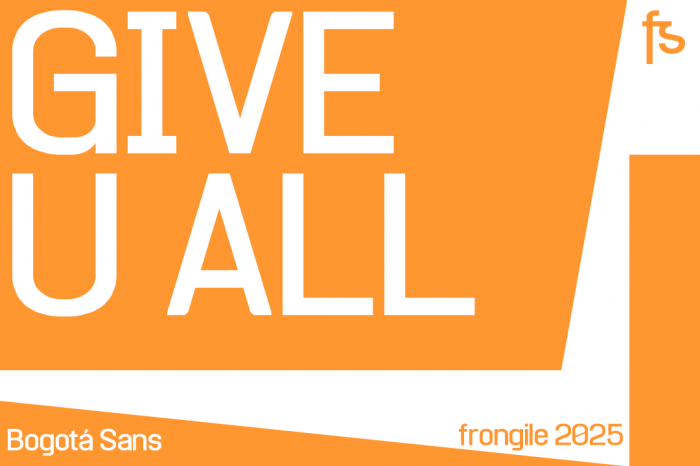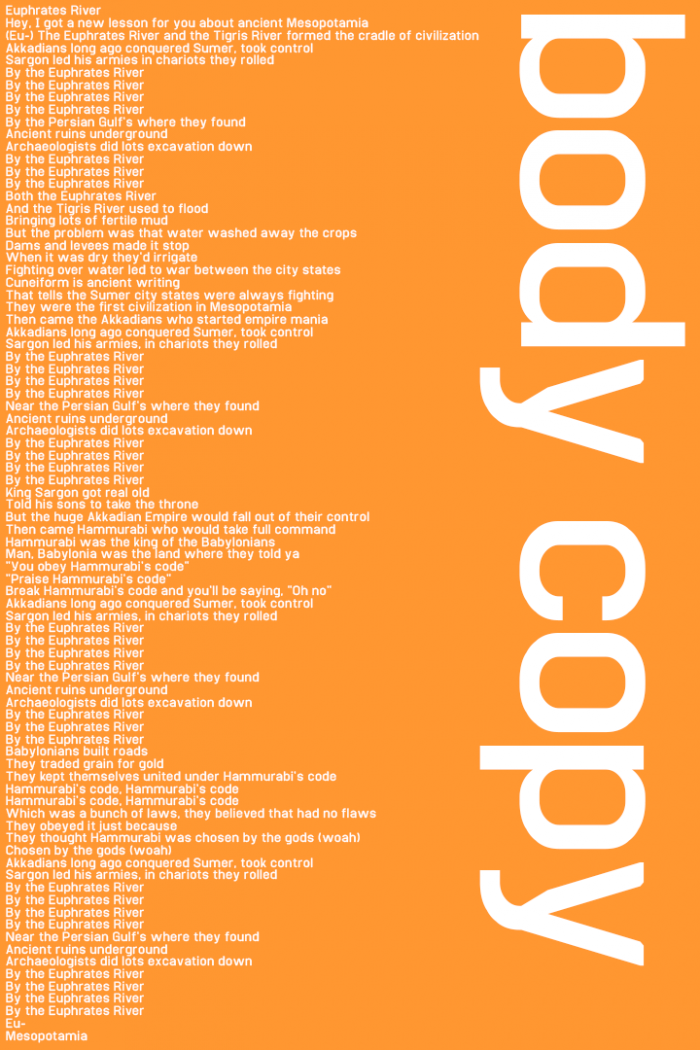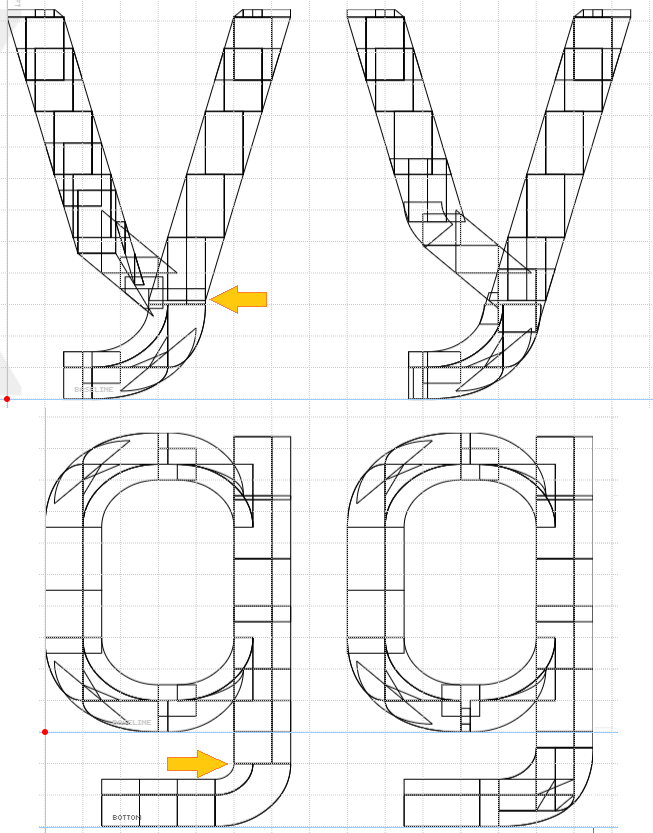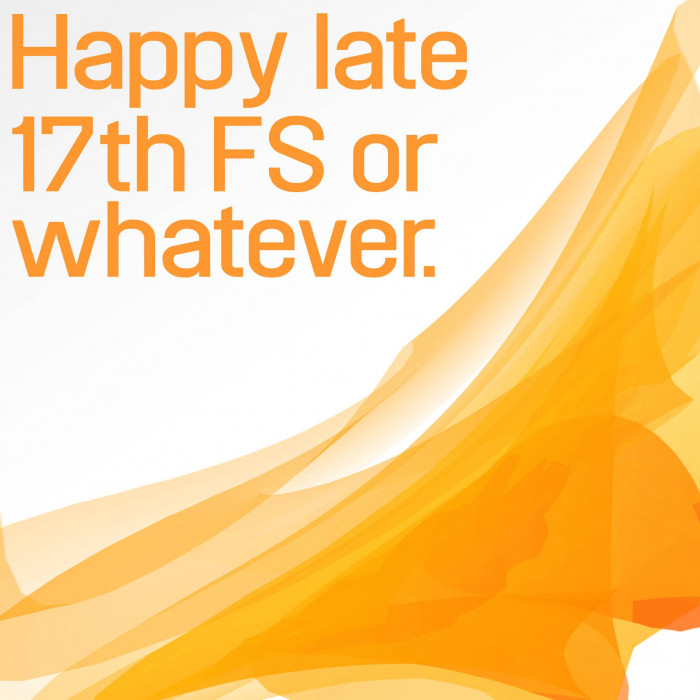
This font looks pretty. I like the ratio at which you flattened round ends of the round glyphs. Yet I would consider making the glyphs like the Y, y and g, j a bit more fluent (call it more ordinary maybe). Sorry I have no best solutions for that ready :-)
Is the connection in % and gap in @ character intentional?
Great Font
Nice Sans! I'm with @Peter (Petruuccio) about these glyphs.
Good work, @frongile!
Very clean.
i sleep
Do. Freaking. Šš & Žž & Ğğ & İı & Ňň to support:
Finnish,Turkish & Estonian,TurkMEN
please don't swear :(
also neither hungarian nor finnish needs any of those